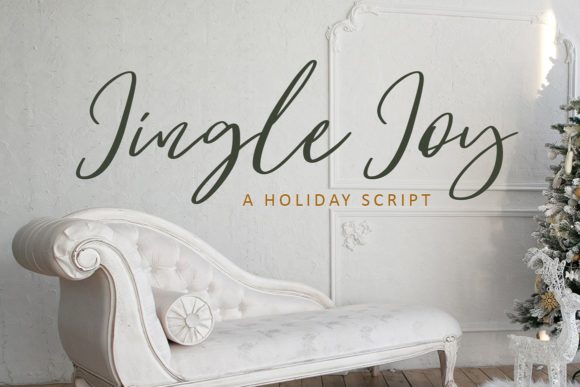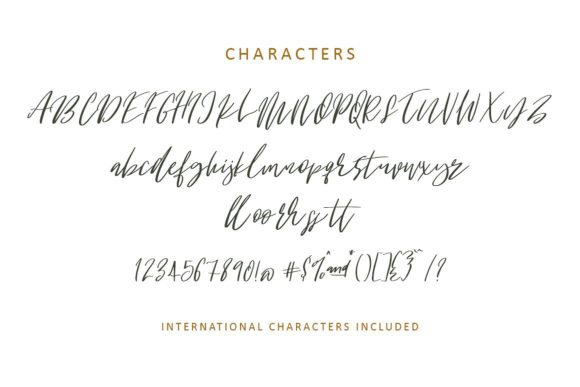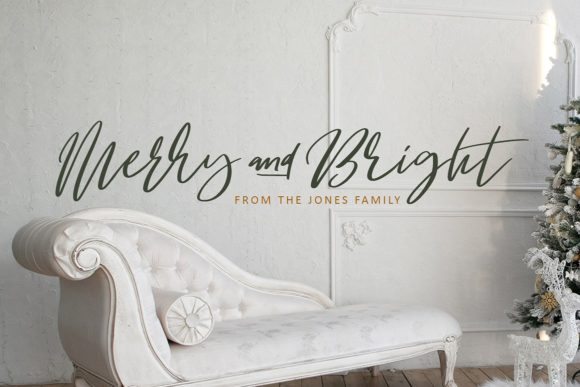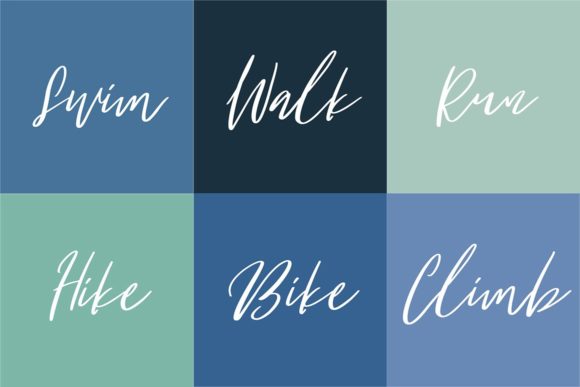
Jingle Joy Font
About Jingle Joy Font
The Jingle Joy is a happy script font. It has a great readability and is perfect for adding a fun, yet elegant style to your designs.